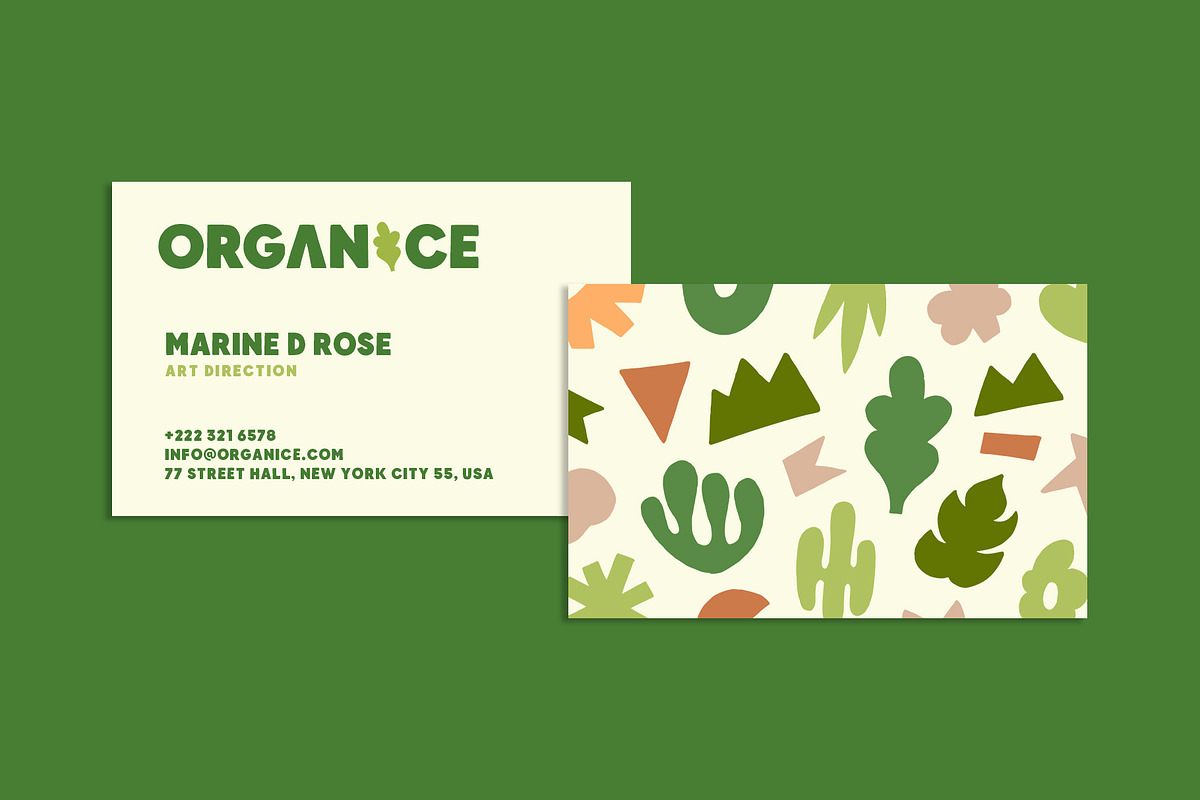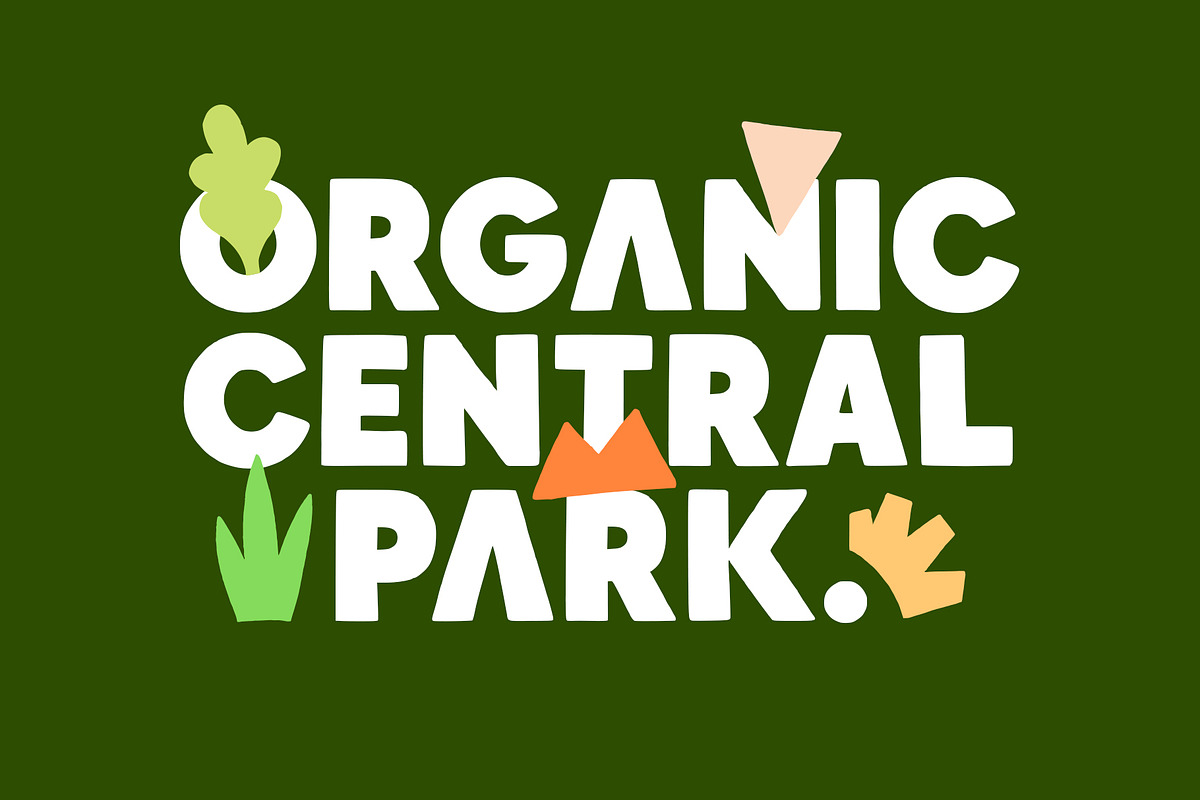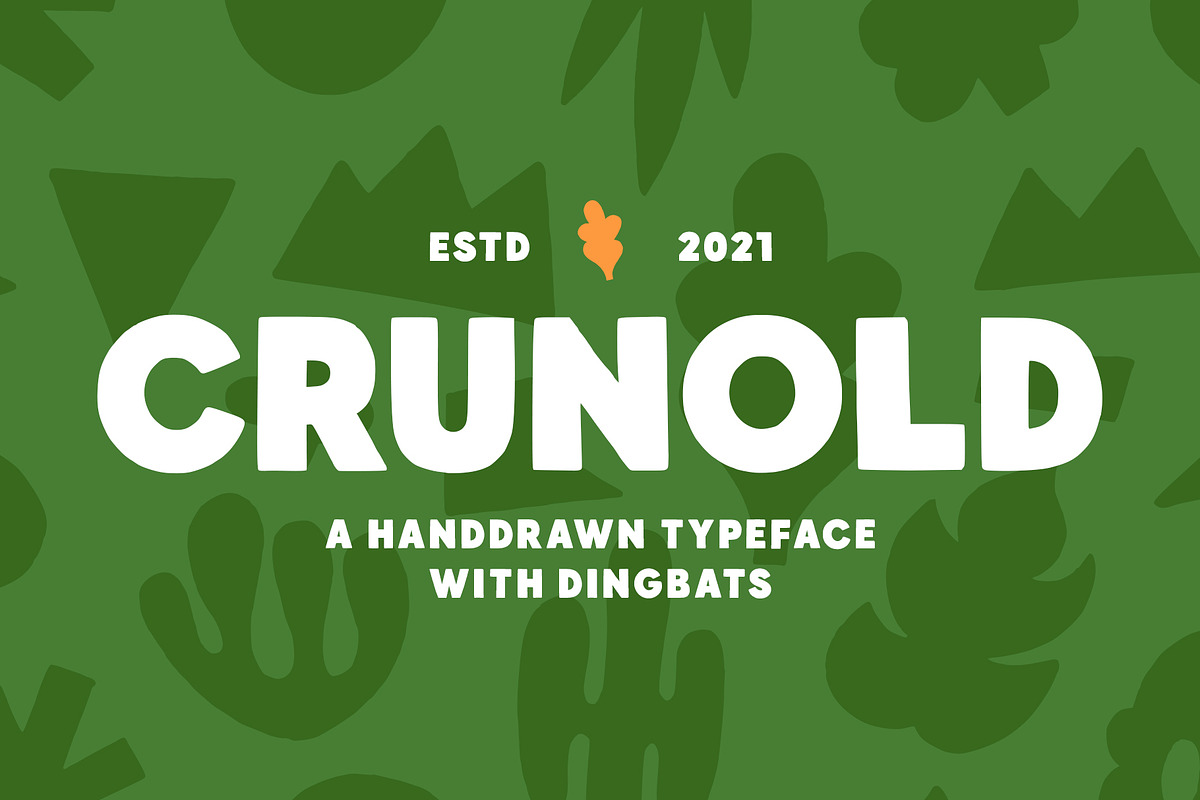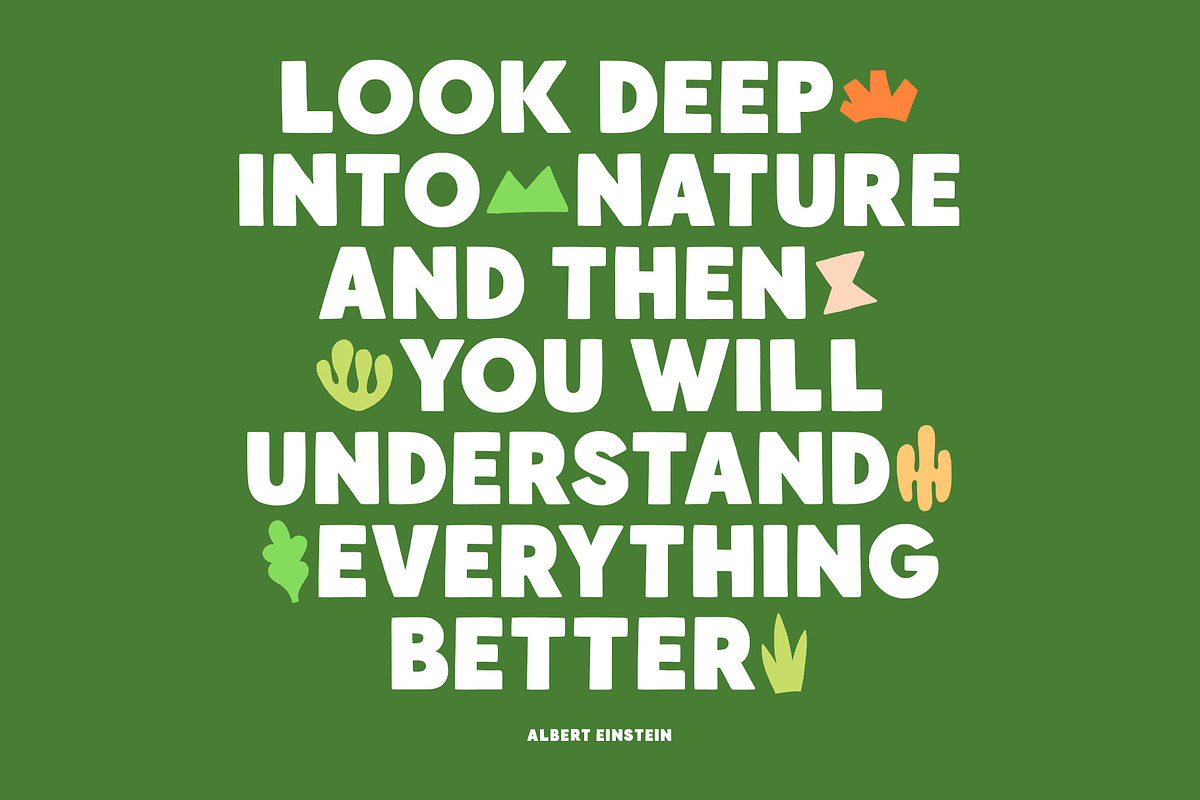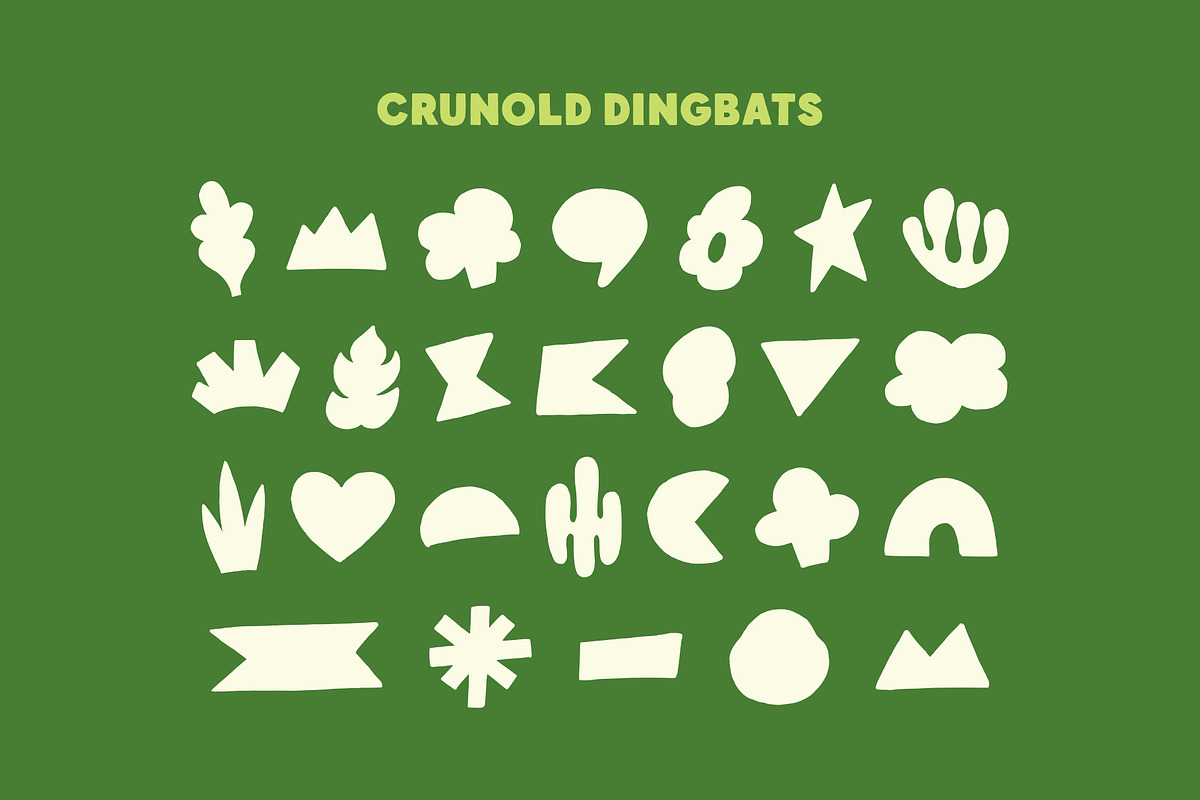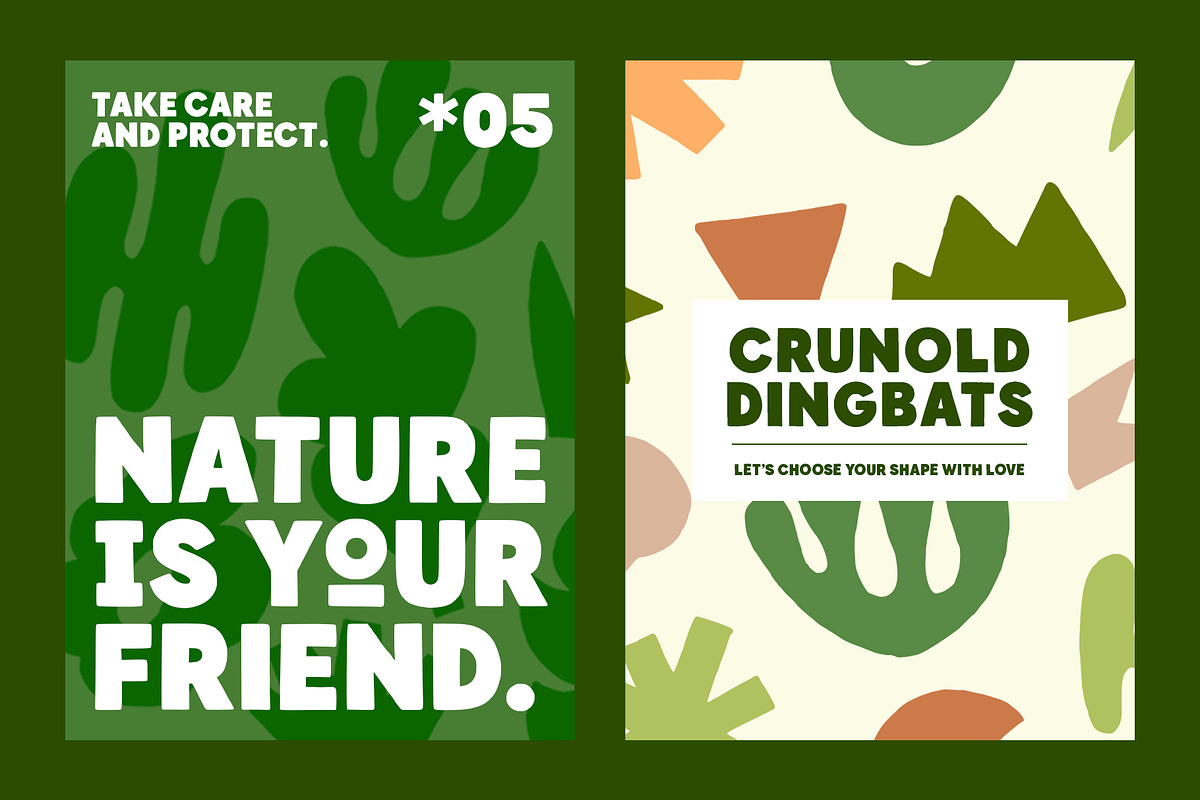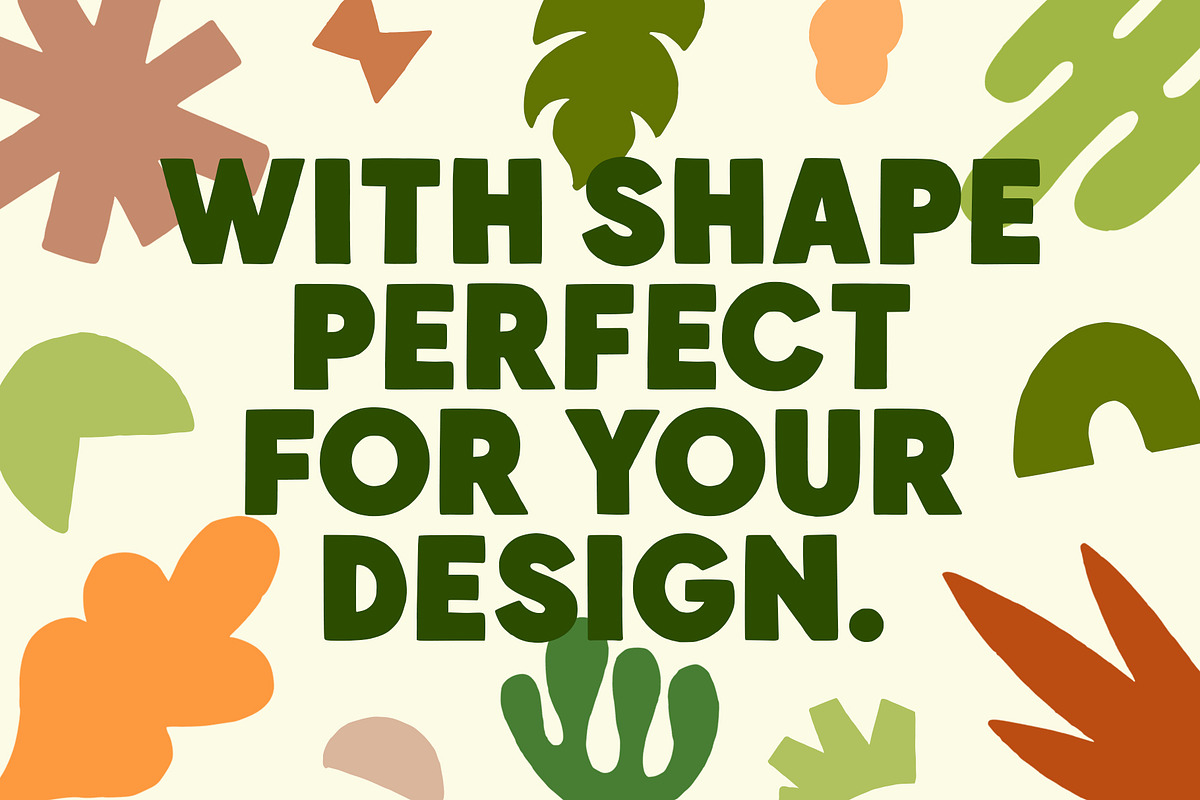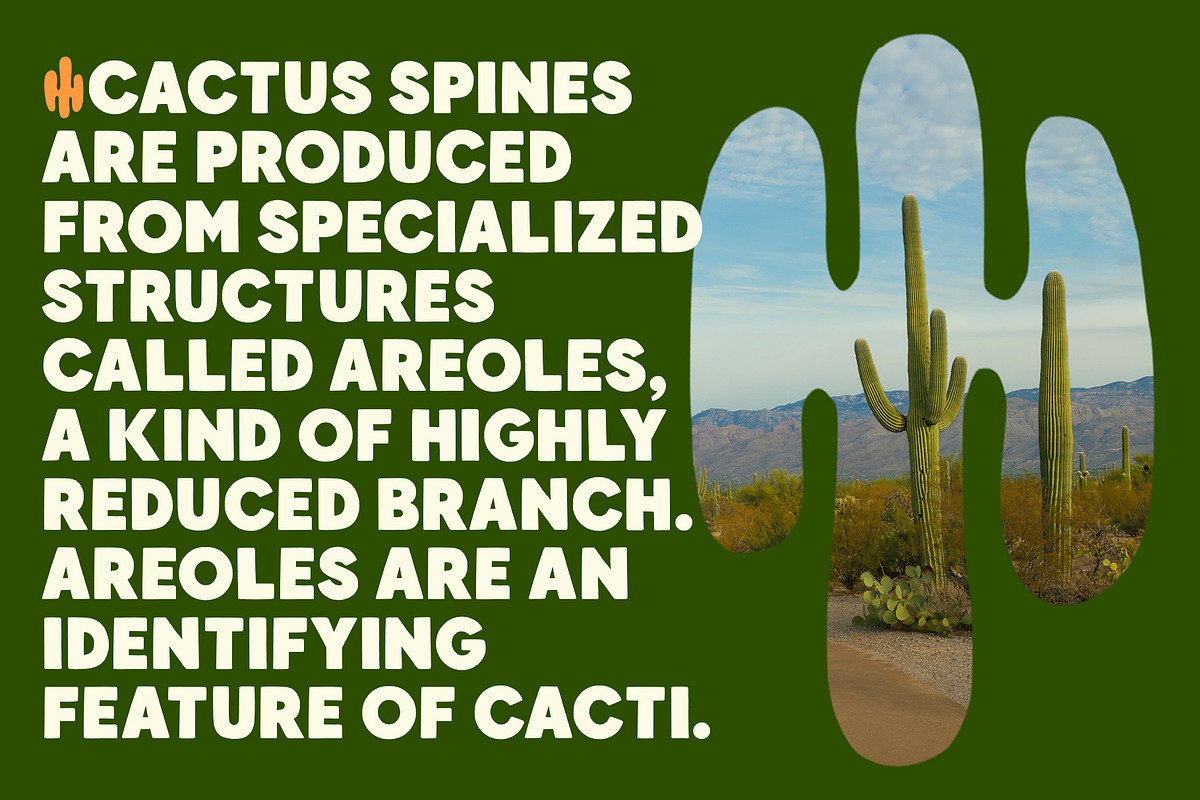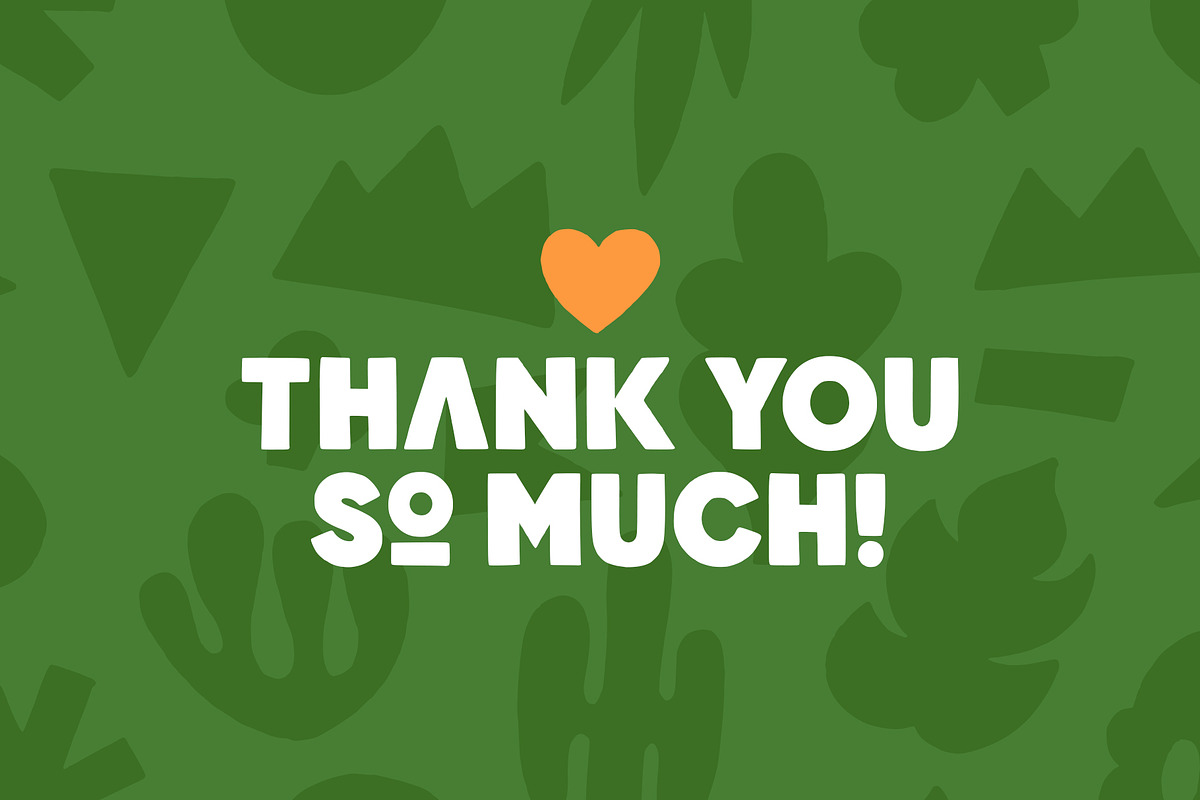
Crunold Font
Crunold is a bold hand-drawn with dingbats as his mate. Inspired by today's popular designs, abstract shapes as an important element in both digital and print designs.
Crunold is perfect for your creative projects. Because, a combination of typography, and the abstract shape of art. Makes your design perfect, also easier in the process.
Crunold is perfect for branding, headlines, packaging, and many more.
- Number & punctuation symbols
- Stylistic sets
- International characters (Multilingual)